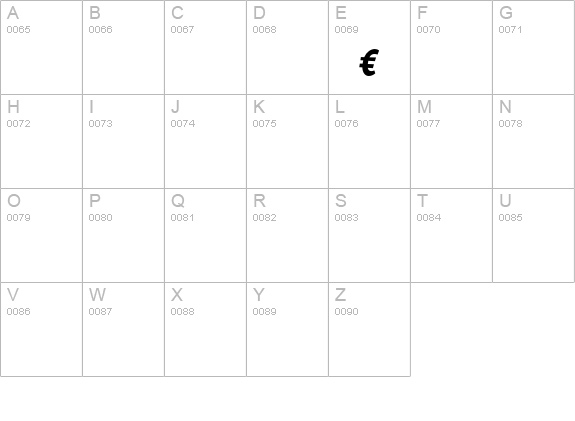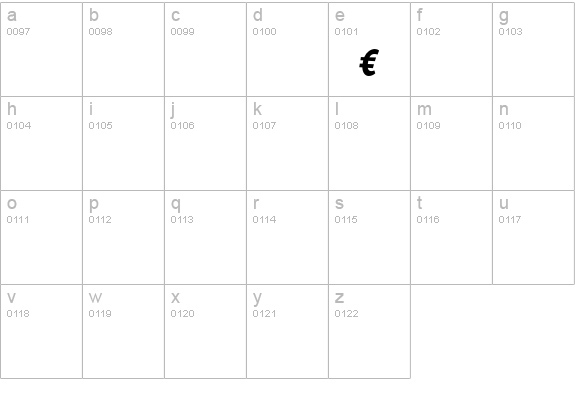
PedestriaMVB-Euro-BoldItalic Font Details
PedestriaMVB-Euro-BoldItalic is a stunning and modern font that effortlessly combines boldness and elegance. Its sleek and stylish design is perfect for adding a touch of sophistication to any project. With its unique blend of thick strokes and slanted italics, PedestriaMVB-Euro-BoldItalic exudes confidence and creativity. It is the perfect choice for those who want to make a statement and stand out from the crowd. This font is not only visually appealing but also highly versatile. Whether you are designing a logo, creating a poster, or designing a website, PedestriaMVB-Euro-BoldItalic will instantly elevate your work to the next level. Its distinctive letterforms and bold presence will captivate your audience and leave a lasting impression. What makes PedestriaMVB-Euro-BoldItalic even more appealing is that it is available free of charge. You can easily download this font at FontsMarket.com, making it accessible to anyone who wants to add a touch of sophistication to their designs without breaking the bank. So why wait? Enhance your projects with PedestriaMVB-Euro-BoldItalic and enjoy the freedom of creativity that this font offers. Download it today from FontsMarket.com and experience the power of this beautifully designed typeface.